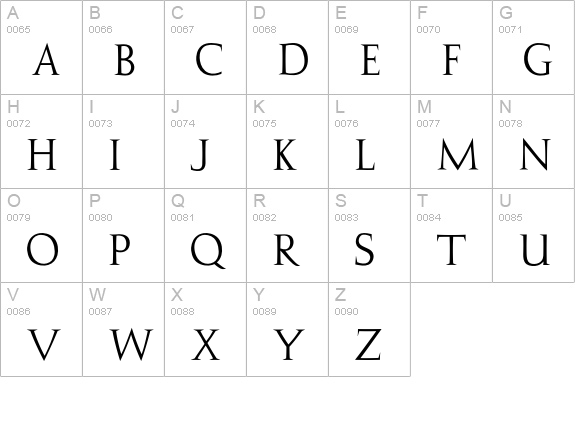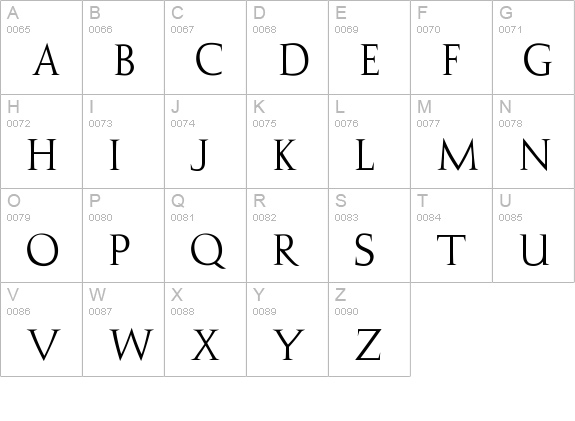
Esther Font Details
Introducing Esther, a timeless and elegant font that exudes sophistication and charm. With its delicate curves and graceful lines, Esther is perfect for adding a touch of class to any design project. Whether you're creating wedding invitations, branding materials, or elegant logos, this font will elevate your work to new heights. The best part about Esther font is that it is completely free to download at FontsMarket.com. Yes, you read that right - you can get your hands on this exquisite font without spending a dime. So why wait? Add Esther to your font collection today and watch your designs come to life with style and grace.